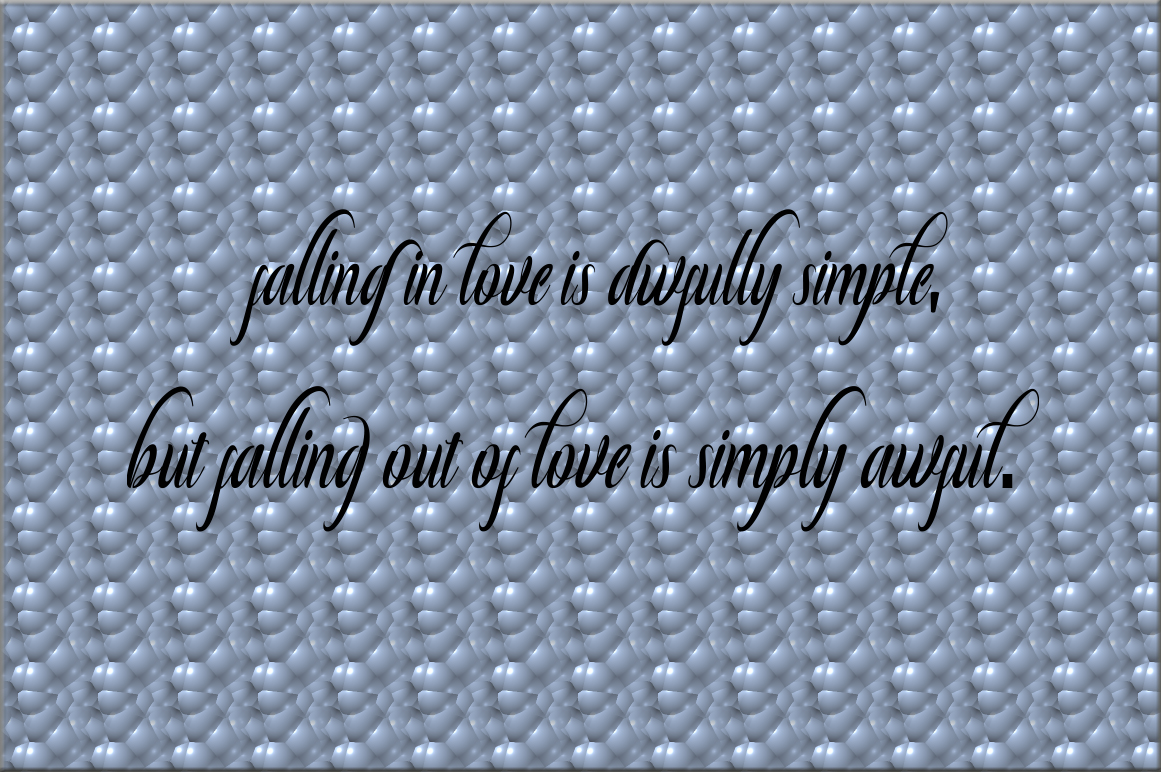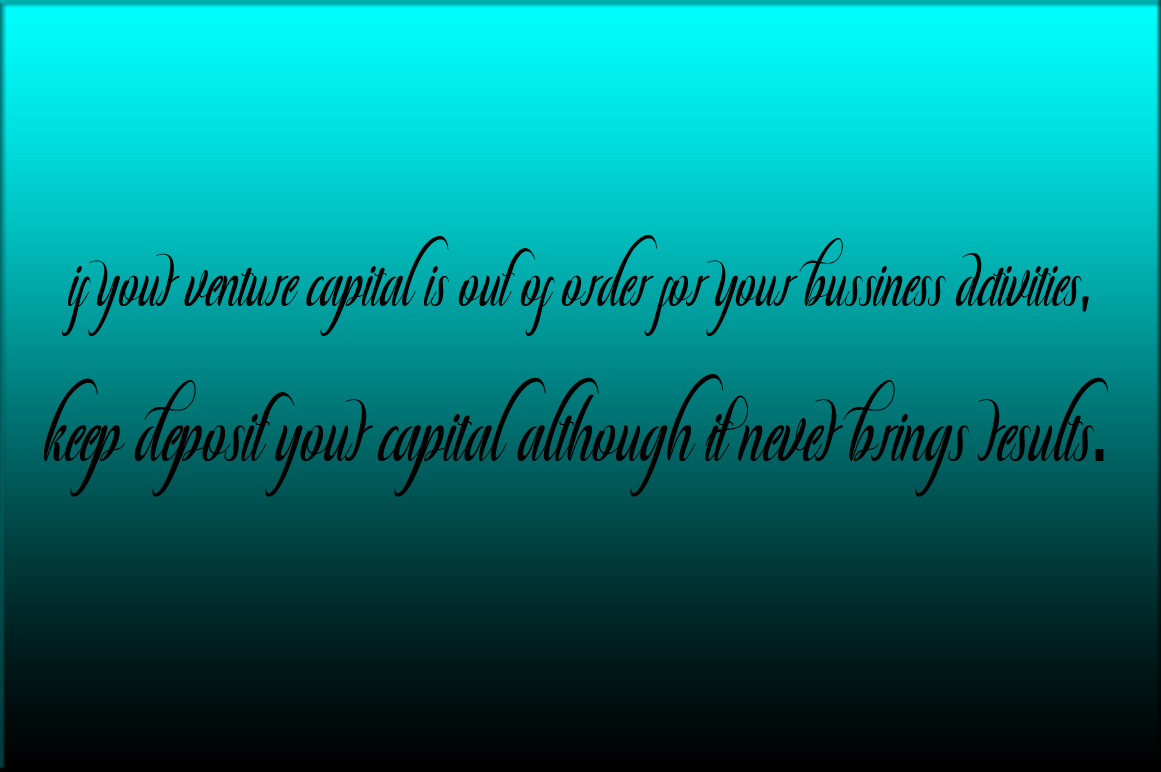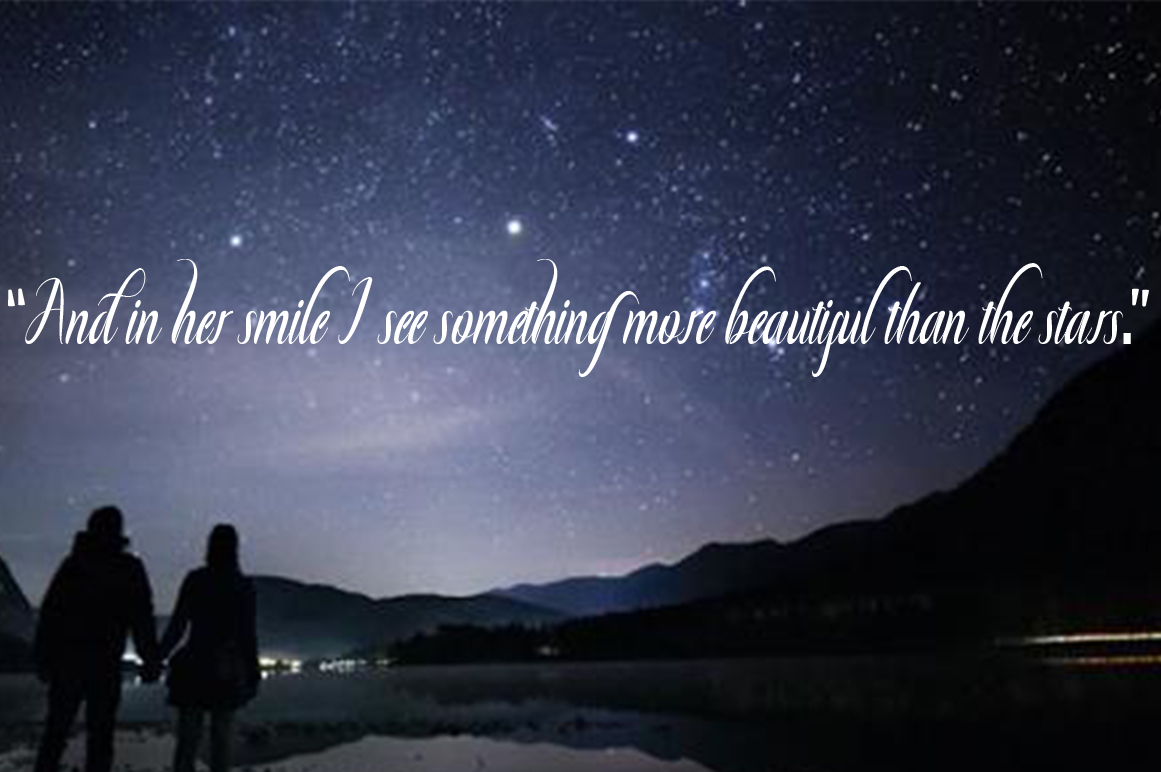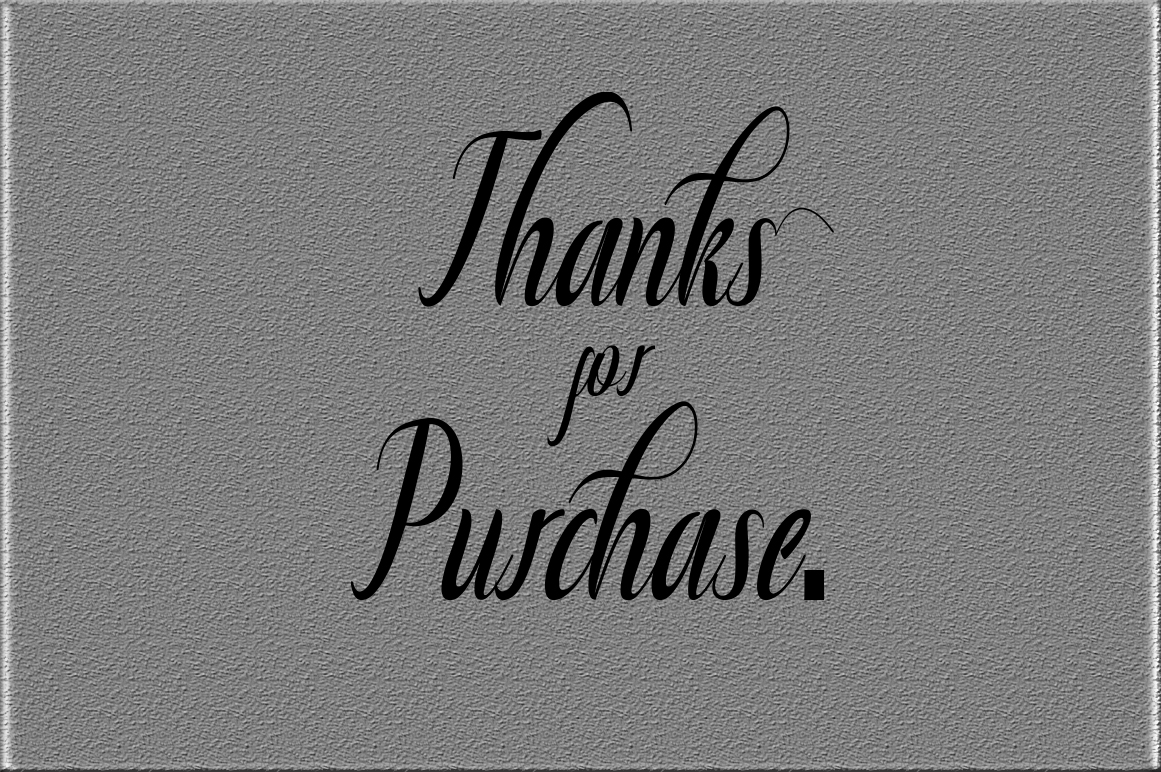
Introduction to Malmyna Script Font
As a designer, there’s nothing quite like the thrill of bringing a creative project to life. The blank canvas stares back at you, begging for your touch. And then, it happens – a spark of inspiration strikes, and you know exactly what you need: the perfect font. For many of us, that perfect font is the Malmyna Script Font. Its natural, modern script style flows effortlessly, making it a timeless choice for both traditional and modern designs.
What makes Malmyna Script Font a valuable resource for designers? Its versatility, for one. This high-quality font is a design resource that can be used across a wide range of creative projects, from elegant wedding invitations to bold marketing campaigns. And with its transparent background, it’s easy to layer and combine with other elements to create a truly unique look.
Whether you’re looking for a free download or a premium option, Malmyna Script Font is a congenial choice that’s sure to elevate your designs. In this article, we’ll delve deeper into the world of Malmyna Script Font and explore its many uses and possibilities.
Key Features of Malmyna Script Font
- Unique, elegant script design perfect for creative projects, such as wedding invitations, quotes, and watercolor designs.
- High-quality font with a transparent background, ideal for use as a design resource in digital and print media.
- Includes multiple font styles and sizes, ranging from 12 to 72 points, making it suitable for a variety of applications.
Honest Review: Malmyna Script Font
I recently had the chance to work with the Malmyna Script Font and I must say it’s a fantastic design resource. This high-quality font has a beautiful, elegant feel to it that’s perfect for any creative project.
What works well: ✨ The Malmyna Script Font has a very smooth, flowing appearance that makes it a joy to work with. The font is highly customizable and can be easily resized and manipulated to fit your design needs. The transparent background is also a nice touch, making it easy to layer over other design elements.
One of the standout features of this font is its versatility. Whether you’re working on a wedding invitation, a birthday card, or a logo, the Malmyna Script Font is sure to impress.
What could be improved: ⚠️ One potential limitation is that the font may not be suitable for very small text sizes. In these cases, the letters may become difficult to read and the font may lose its elegance.
Overall impression: I’m thoroughly impressed with the Malmyna Script Font and would highly recommend it to anyone looking for a high-quality design resource. With its beautiful design and versatility, it’s the perfect addition to any creative project.
- Smooth, flowing appearance
- Customizable and versatile
Malmyna Script Font is a high-quality, elegant design resource ideal for creative projects. It features a beautiful, handwritten style with a transparent background, making it perfect for overlaying on images or using as a standalone element.